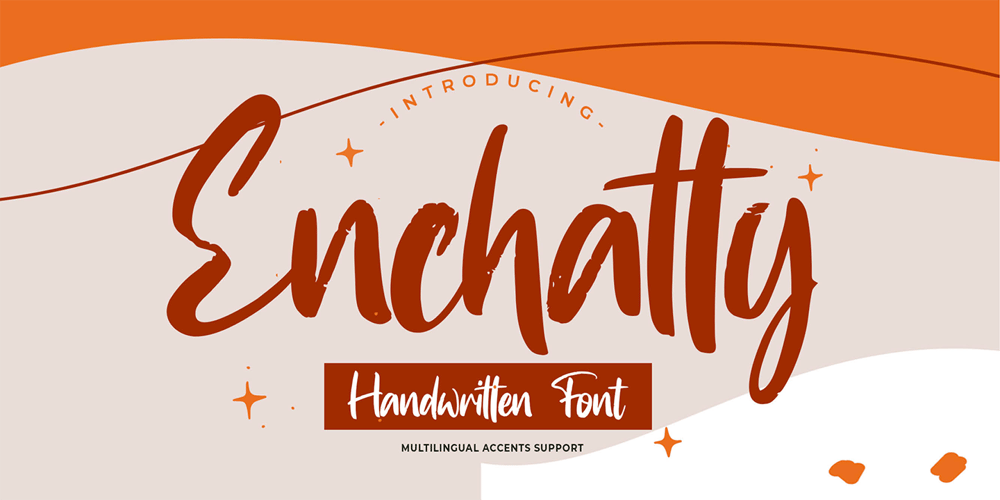
Enchatty
Enchatty font
Enchatty Font Family was designed by Abdul Malik Wisnu, Anang Fibriyanto and published by Gassstype. Enchatty contains 1 styles and family package options. Hello Everyone, introduce our new product Font Enchatty it is Handwritten Font.This is a Textured Natural Style and classy style with a clear style and dramatic movement. You can activate 13 Ligatures glyphs and 4 Alternate glyphs OpenType panel.